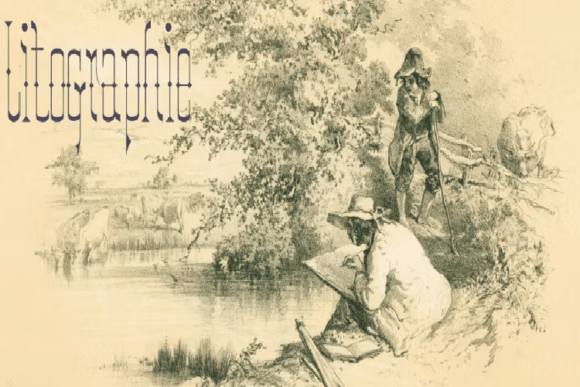
Discover the Elegance of Antiquariaat Font: A Condensed Typeface with a Unique Twist
In the world of typography, few fonts manage to capture the essence of elegance and sophistication as effectively as the Antiquariaat font. This exquisite and unusual design has been turning heads among designers and crafters alike, and for good reason. Antiquariaat is a very condensed typeface that offers a distinctive blend of classic charm and modern flair, making it an ideal choice for a wide range of creative projects.
The Story Behind Antiquariaat Font
The Antiquariaat font is a product of meticulous craftsmanship and a deep understanding of typographic design. Its condensed nature makes it perfect for use in situations where space is limited, yet the need for clear and stylish communication remains paramount. This typeface is not just about saving space; it’s about making a statement. Its unique design elements evoke a sense of nostalgia while still feeling refreshingly contemporary.
Characteristics of Antiquariaat Font
So, what sets Antiquariaat apart from other typefaces? Here are a few key characteristics:
- Condensed Design: The most striking feature of Antiquariaat is its high condensation. This allows for efficient use of space without sacrificing readability, making it ideal for headings, titles, and where a compact footprint is desired.
- Elegant and Exquisite: The font boasts an undeniable air of sophistication. Its lines are clean, yet it carries a subtle hint of vintage charm that can add depth and character to any project.
- Versatility: Despite its condensed nature, Antiquariaat remains surprisingly versatile. It can be used in a variety of contexts, from digital media to print, and can complement a wide range of design styles.
- Legibility: One of the challenges with condensed typefaces is maintaining legibility. Antiquariaat navigates this challenge with ease, ensuring that even at smaller sizes, the text remains clear and easy to read.
Uses of Antiquariaat Font
The applications of Antiquariaat font are as varied as they are impressive. Designers and crafters have found innovative ways to incorporate this typeface into their work:
- Branding and Logos: The unique and elegant design of Antiquariaat makes it a popular choice for branding and logos, where standing out is crucial.
- Headings and Titles: Its condensed design and high impact make it perfect for headings and titles in both print and digital media.
- Packaging: For product packaging, where space is often at a premium, Antiquariaat offers an elegant solution that can help products stand out on crowded shelves.
- Web Design: In web design, Antiquariaat can be used to create striking headers and can help to organize content in an aesthetically pleasing way.
Tips for Using Antiquariaat Font Effectively
To make the most of Antiquariaat font, consider the following tips:
- Pair it Wisely: When pairing Antiquariaat with other fonts, choose typefaces that complement its elegance. A sans-serif font for body text can create a nice contrast.
- Adjust Letter Spacing: For optimal readability, especially at smaller sizes, consider adjusting the letter spacing to ensure your text remains clear and legible.
- Use it for Impact: Given its condensed nature and elegant design, Antiquariaat is best used for headings and titles where you want to make an impact.
The Antiquariaat font is a remarkable addition to the world of typography, offering a unique blend of elegance, versatility, and functionality. Its condensed design, exquisite aesthetic, and unusual charm make it a valuable tool for designers and crafters looking to add a touch of sophistication to their projects. Whether you’re working on branding, web design, packaging, or any other creative endeavor, Antiquariaat is sure to leave a lasting impression.
As we continue to explore the capabilities and applications of the Antiquariaat font, it’s clear that this typeface is more than just a design element—it’s a statement of style and a testament to the power of typography in communication. Whether you’re a seasoned designer or a crafter looking for that perfect finishing touch, Antiquariaat font is definitely worth exploring.